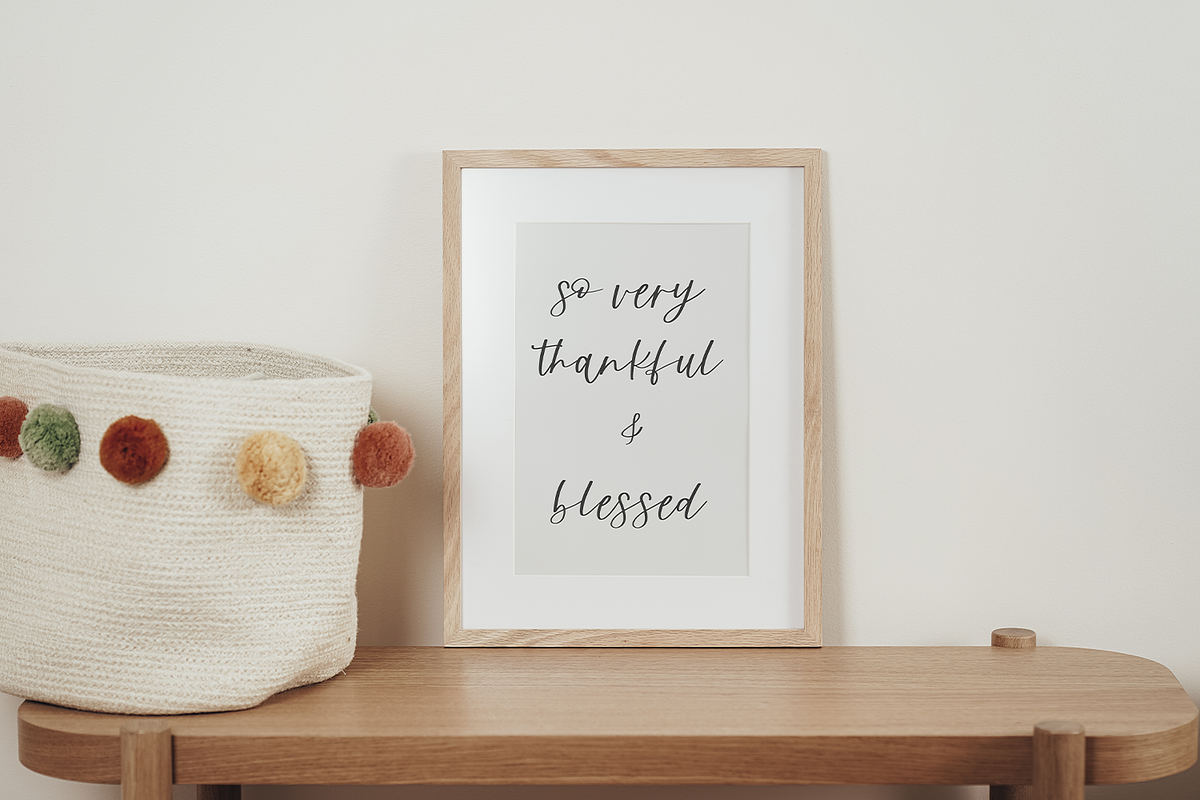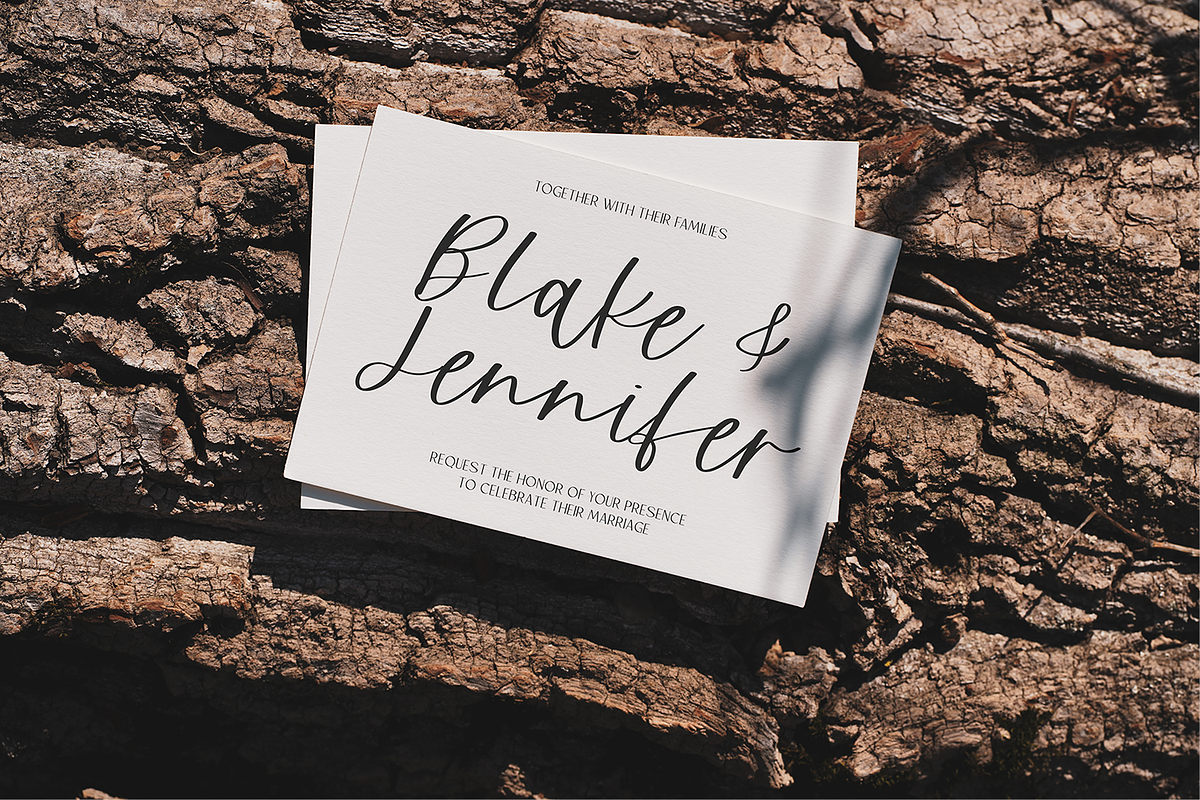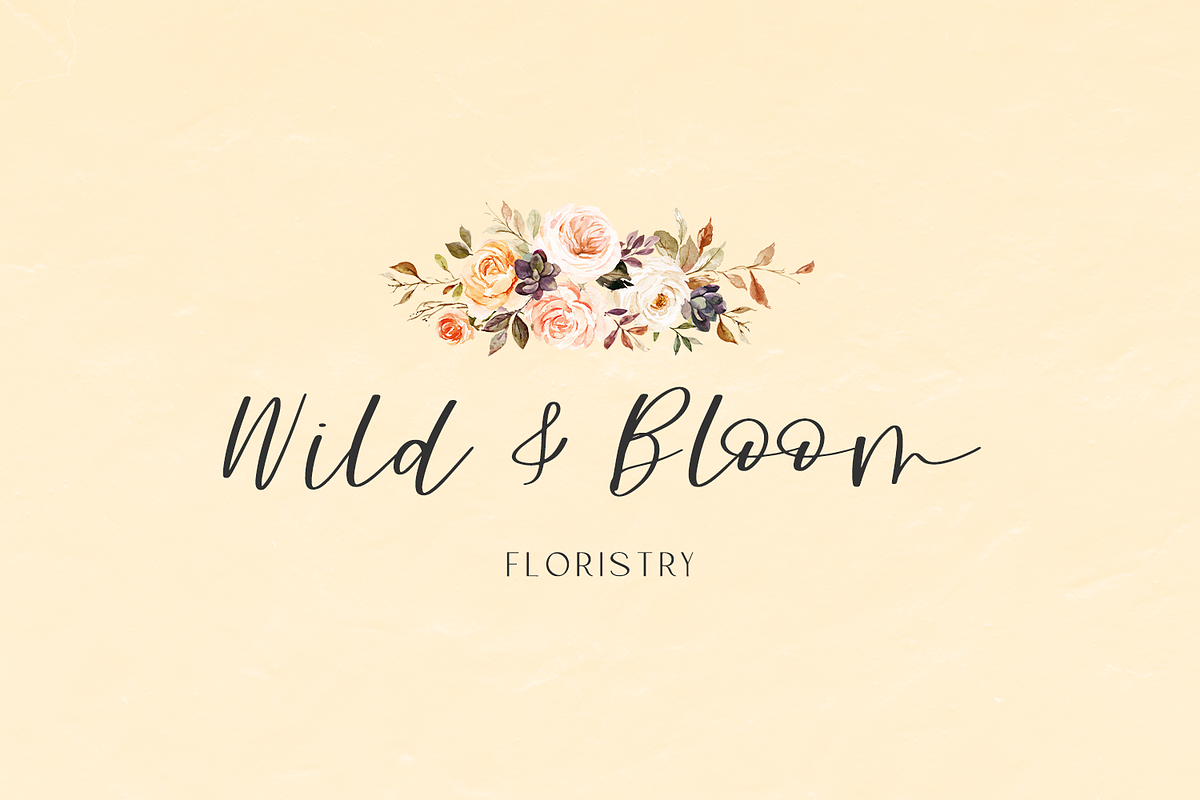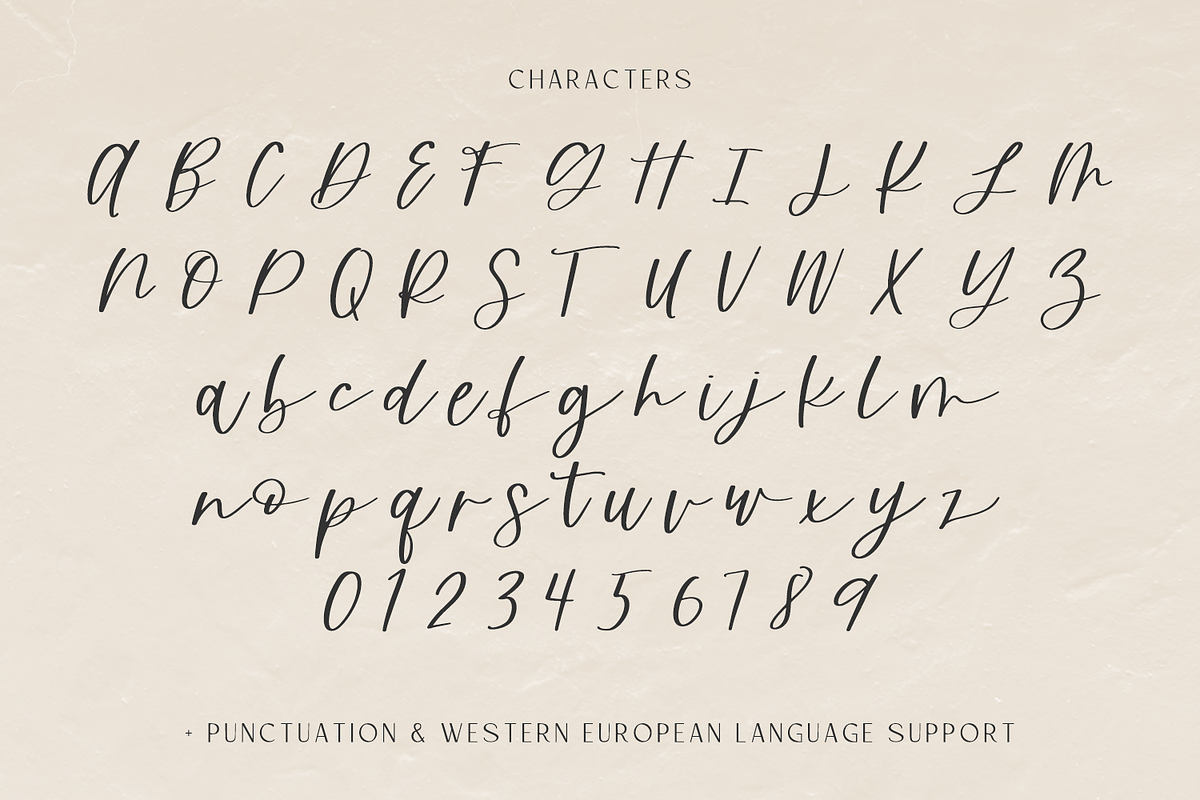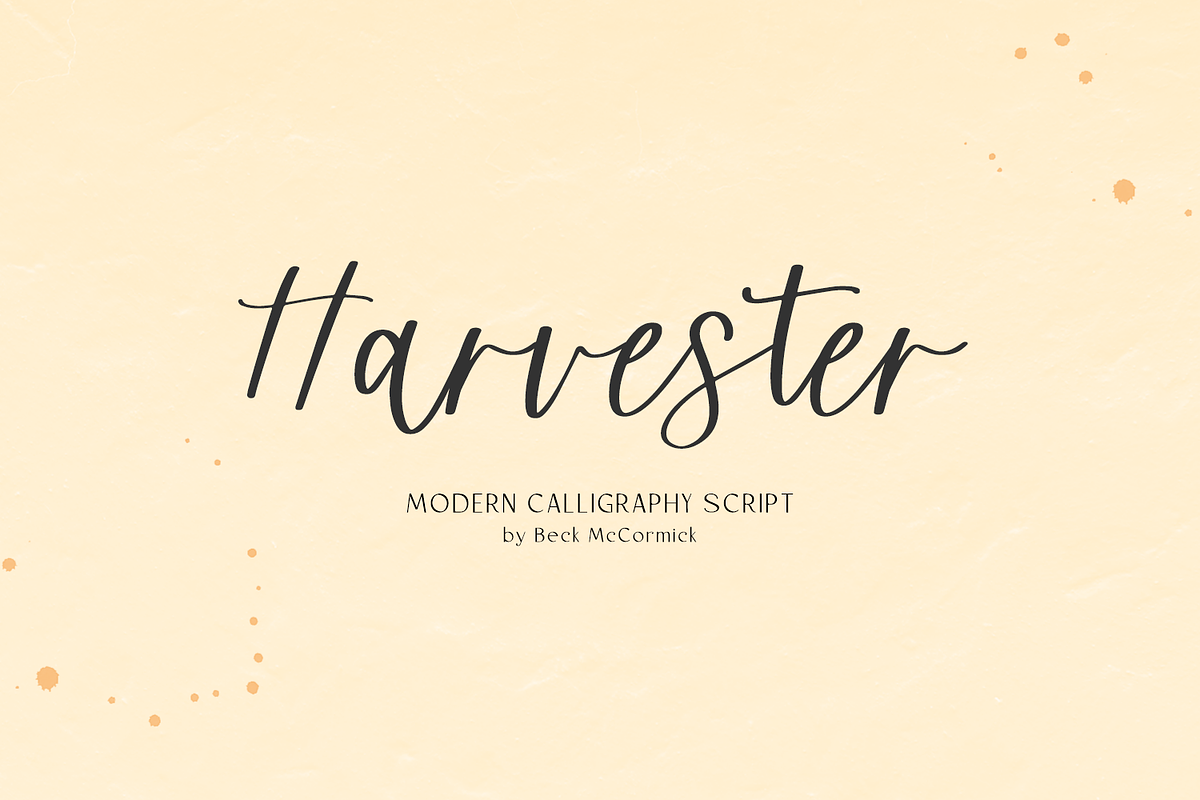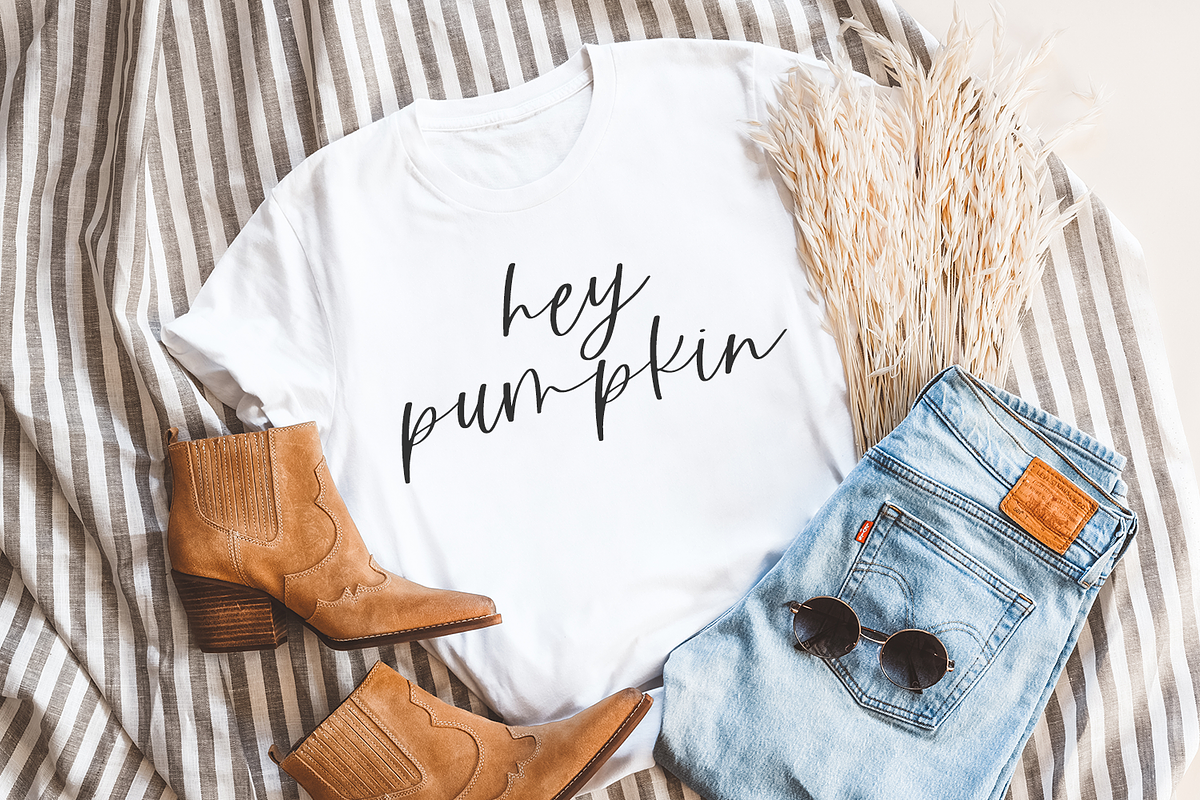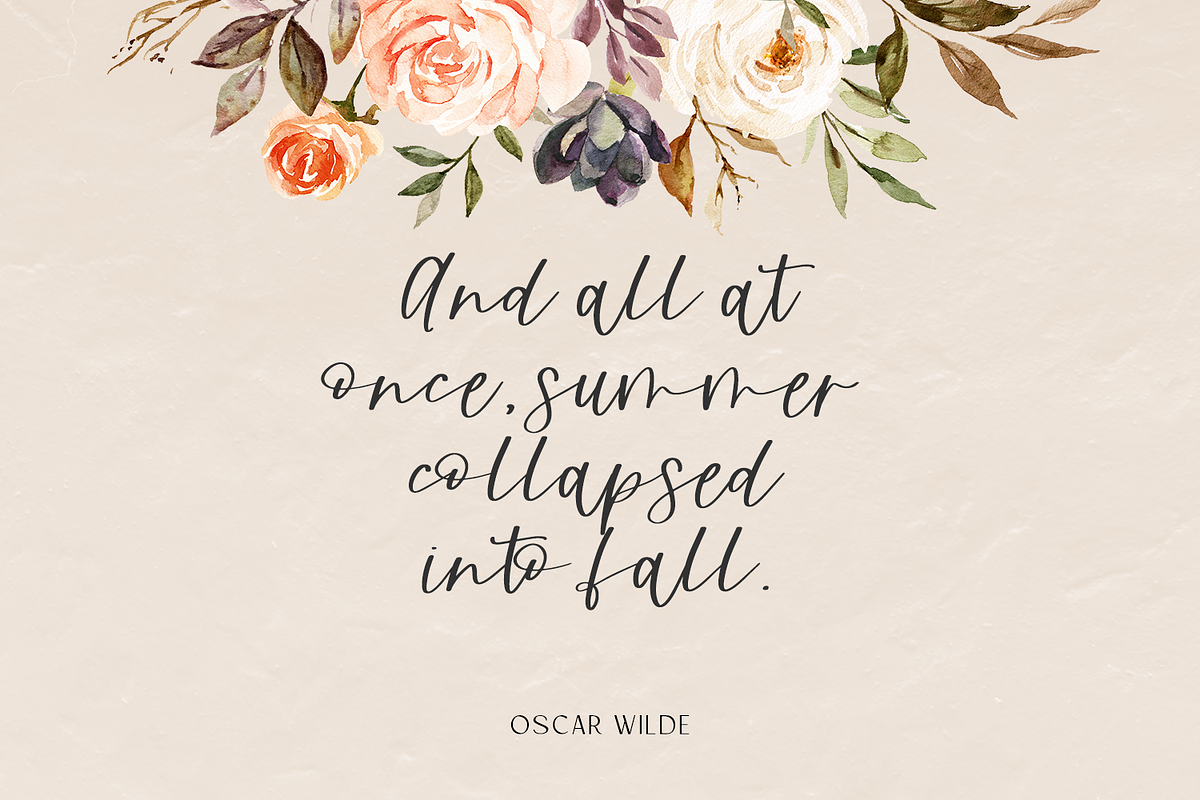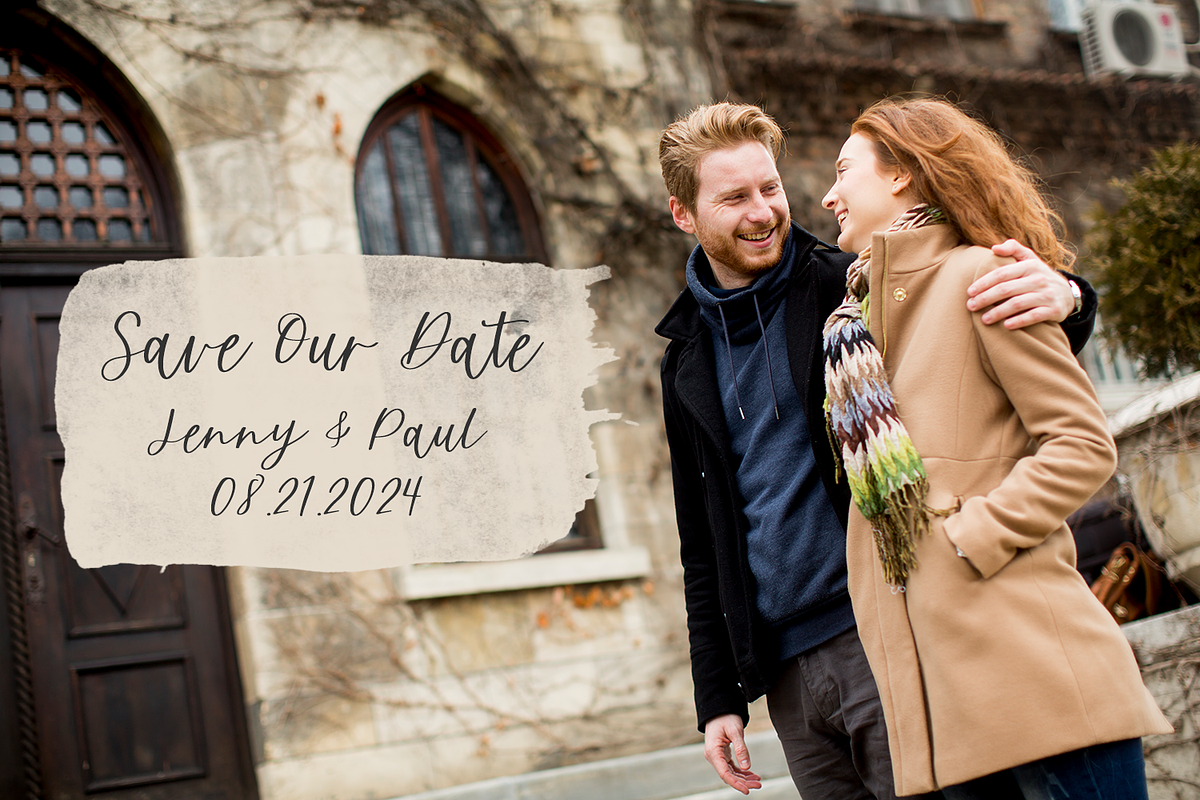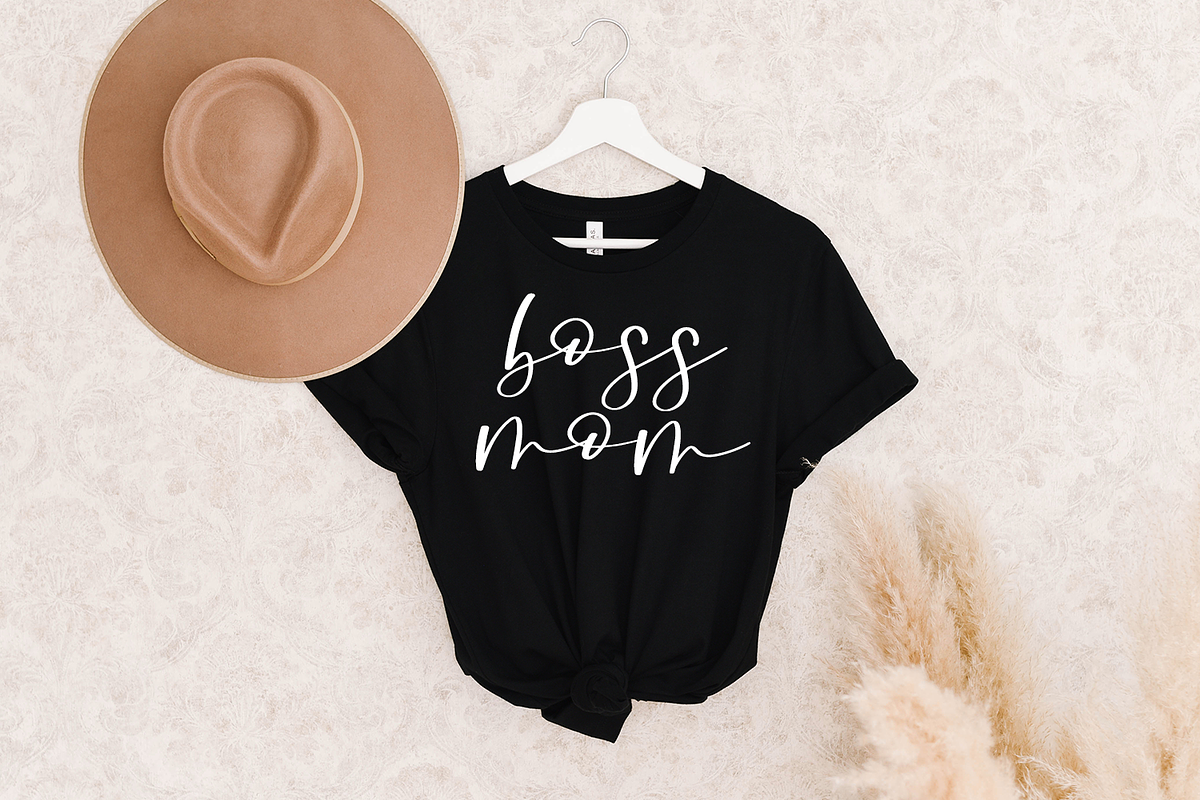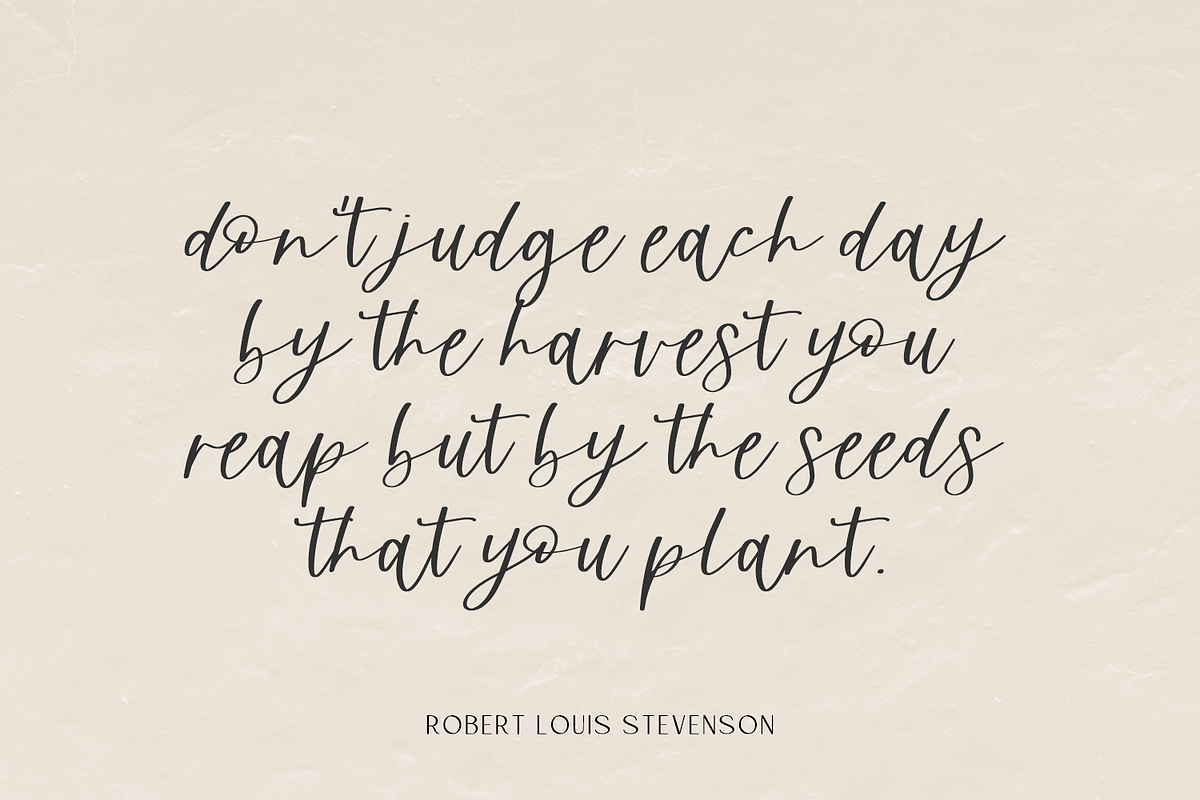
Harvester Script
Introducing Harvester, a modern calligraphy script.
Harvester is best for:
- feminine, crafty projects with your Cricut or Silhouette machine, or your SVG design business
- farmhouse decor and crafts
- logos + branding
- digital planners & apps like Goodnotes
- website design + website accents, blog design
- clean print design, like magazines + flyers
- header elements that need handwritten touch
- quote graphics for social media
- feminine graphic tee shirt design & other apparel
- full upper + lowercase characters
- numbers + punctuation
- Western European Language Support